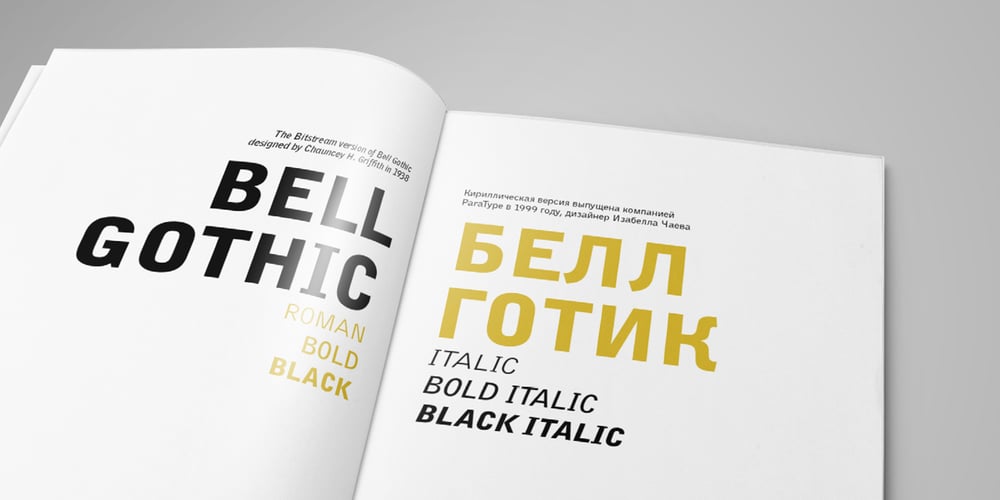
Bell Gothic
Bell Gothic font
Bell Gothic Font Family was designed by Isabella Chaeva and published by ParaType. Bell Gothic contains 6 styles and family package options. The Bitstream version of Bell Gothic designed by Chauncey H. Griffith in 1938 for telephone directories of the Bell Telephone Company. It is a good sans serif choice for listings, catalogues and directories as its design is very space saving. The weight of the line is moderate and uniform. Being a clear and easy-to-read font, Bell Gothic is popular now for display and magazine advertising. Cyrillic version by Isabella Chaeva was released by Paratype in 1999. Italic styles added in 2009 by the same designer.